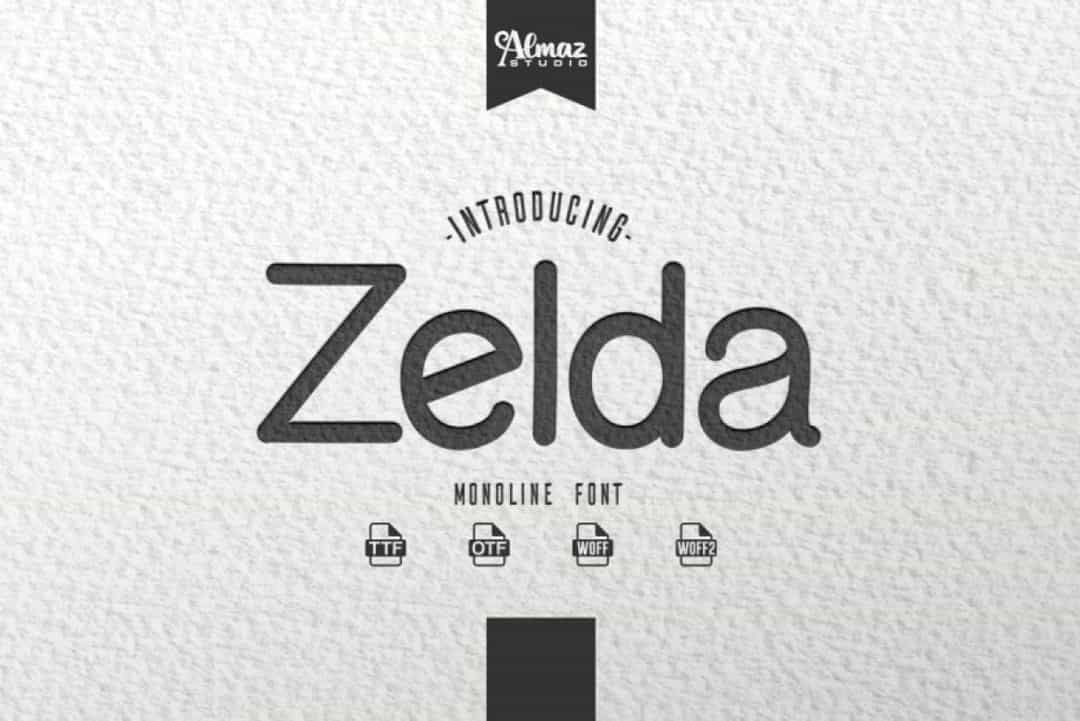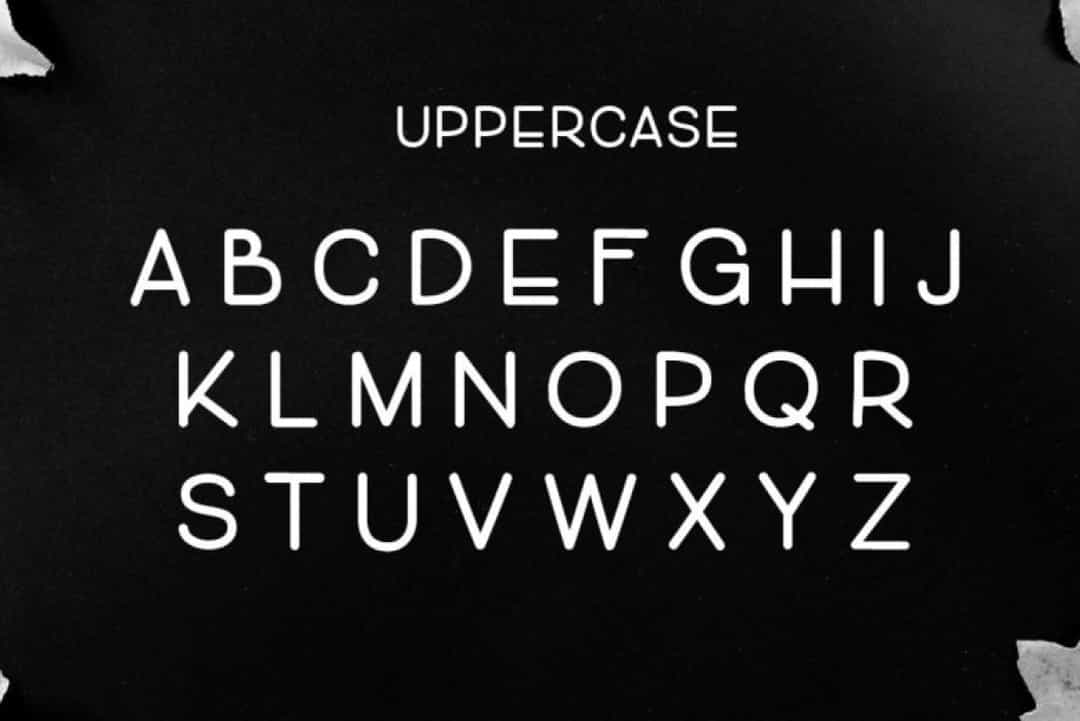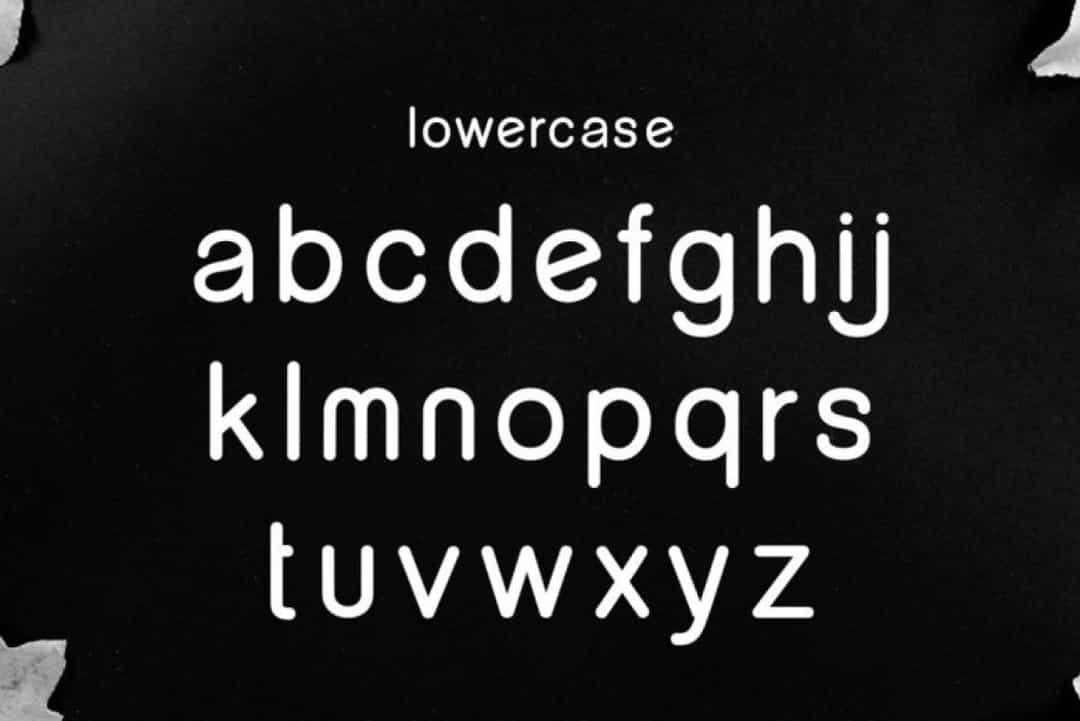
Zelda font is an exquisitely distinctive sans serif font that blends perfect readability with modernist lettering. Available as regular italic, bold italic, and bold variants; Zelda was originally hand-drawn before moving onto computer-generated graphics for production purposes. There are various versions.